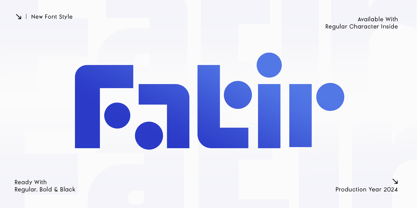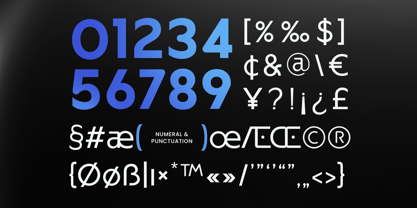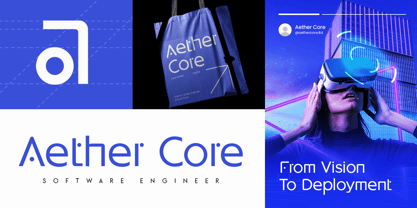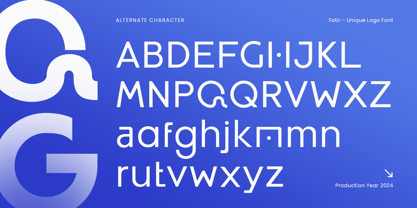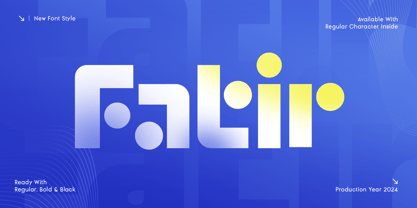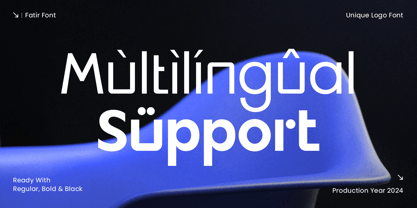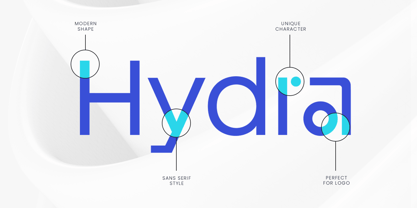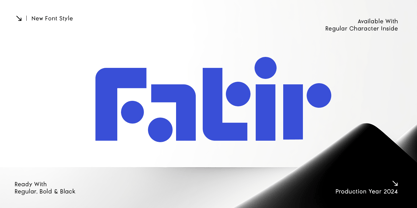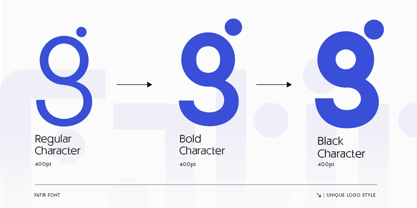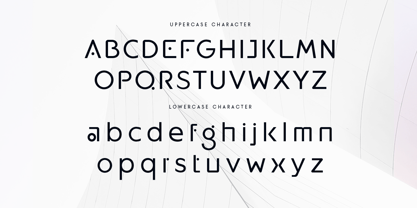
FATIR is a unique logo font crafted to give your branding projects a distinctive and memorable identity. With clean, modern lines and bold character shapes, FATIR is perfect for logos, brand identities, packaging, and creative projects that demand originality.
Whether you’re designing for startups, personal brands, or creative agencies, FATIR ensures your designs stand out with clarity and personality. Its versatility makes it suitable for digital, print, and all branding applications.
Features:
Bold and distinctive letterforms for standout logos
Ideal for branding, creative projects, and display designs
Includes uppercase, lowercase, numerals, and punctuation
Modern, versatile design suitable for various applications
OpenType features for enhanced typographic flexibility
Make your brand unforgettable with FATIR – the ultimate font for creative, unique logo design. ✨️
Fatir